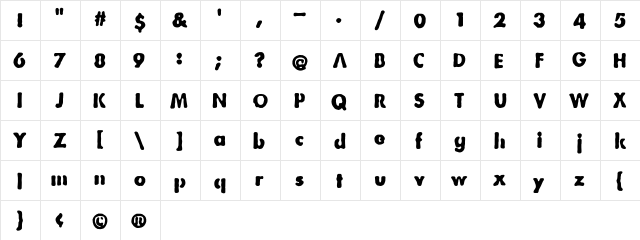
Bootleg Regular
Design Context for Bootleg Typeface
Bootleg offers clean, dependable letterforms without strong stylistic allegiance, making it a practical choice for designers who need flexibility.
Pro Tip: Use Bootleg in both headline and body roles to test its range before committing to a single application.